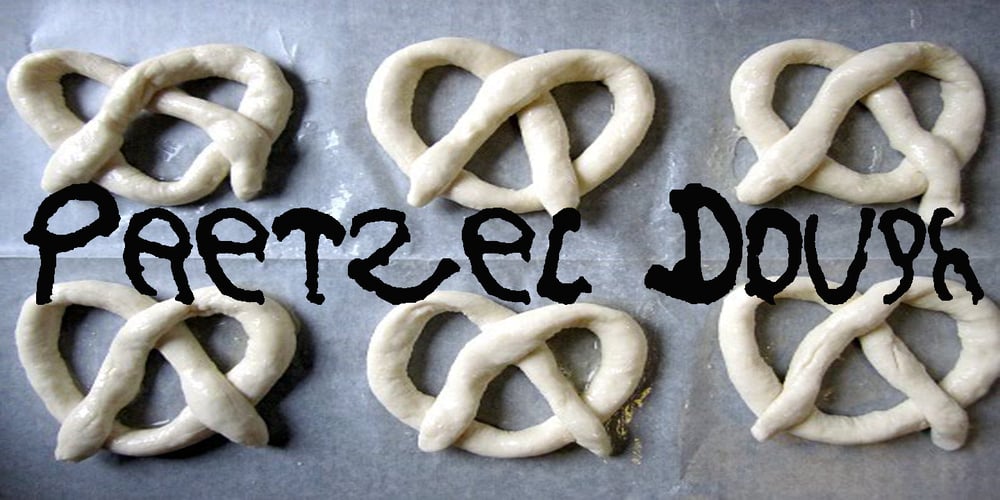
Pretzel Dough Font Family was designed by Jose Jimenez and published by Celebrity Fontz. Pretzel Dough contains 1 styles and family package options. The Pretzel Dough font was inspired by a challenge to make the letters of the alphabet and numbers from the same bowl of pretzel dough. The result is this whimsical and fun typeface. Comes with full set of accented characters.